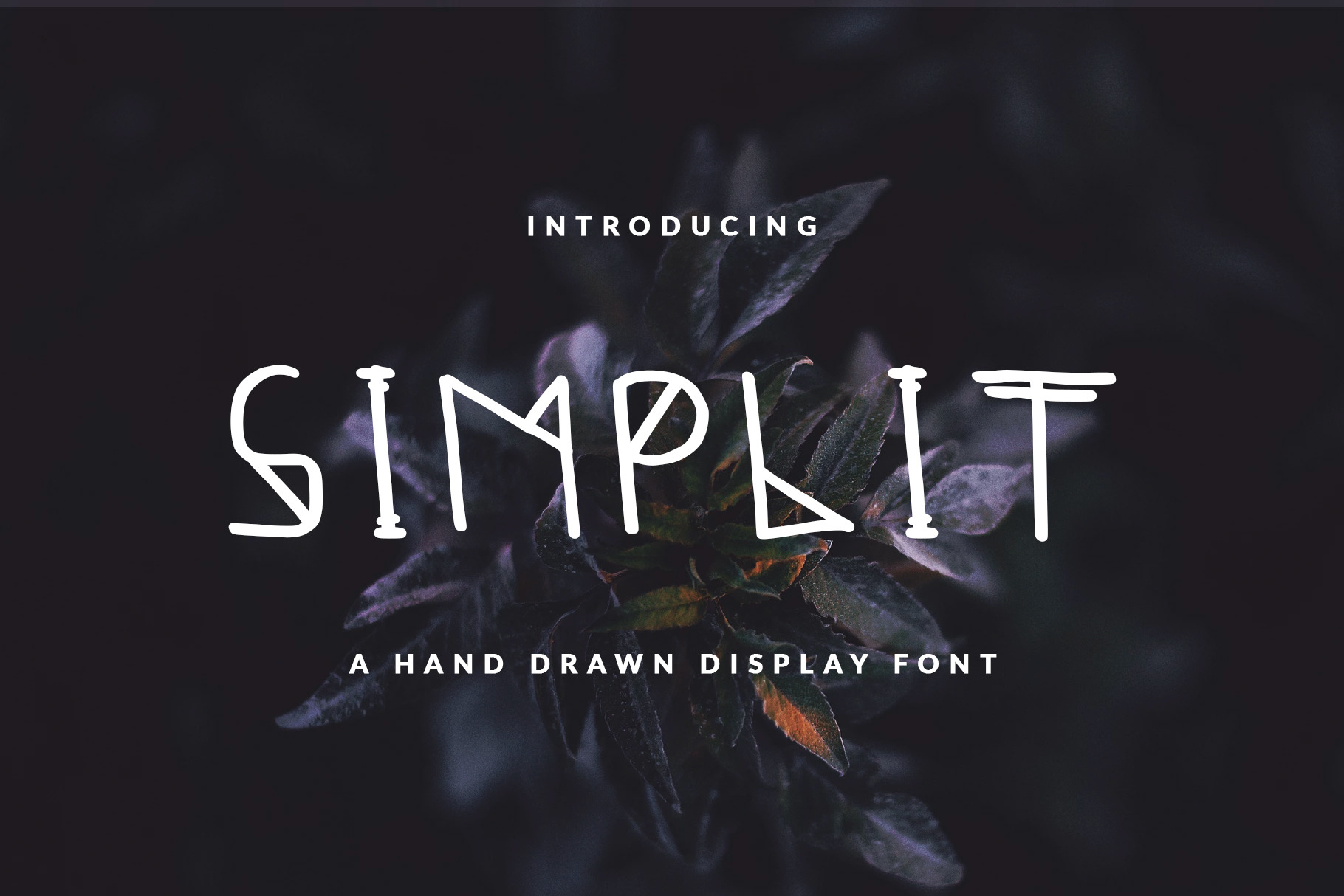
Simplicitic Font For Header
Sans serif hand-drawn display font called Simplicitic was designed for modern, classic, light, unique and other style also fit for Header website, general use for header text, kids stories, books, poems and other long text